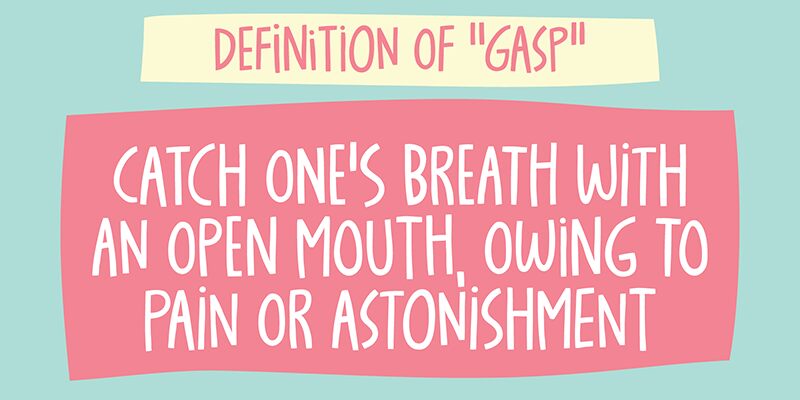
Candy Gasp DEMO
Candy Gasp font by Pizzadude is a condensed display font with hand-drawn comic vibe. Its playful, quirky, and vintage-inspired feel appears both unusual and expressive making the font truly unique and suitable for a special variety of projects out there that enjoy going off the road just a little bit.
This free display font is irregular neither in style nor width being perfect for caricature book covers, quote designs, friendly packaging designs, music posters, artistic magazines’ mastheads and cover headlines as well as other valuable creative contexts that value visual expression.